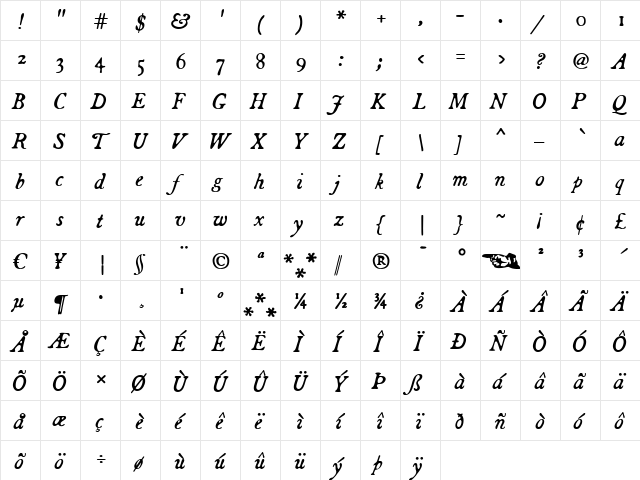
Broadsheet Italic
Design Context for Broadsheet Typeface
Broadsheet is a composed and adaptable typeface that performs quietly and consistently across a wide range of design contexts. The slanted form adds forward momentum and visual energy.
Pro Tip: Try Broadsheet for annotation and caption copy alongside an upright companion — the contrast in angle creates a dynamic but ordered typographic system.